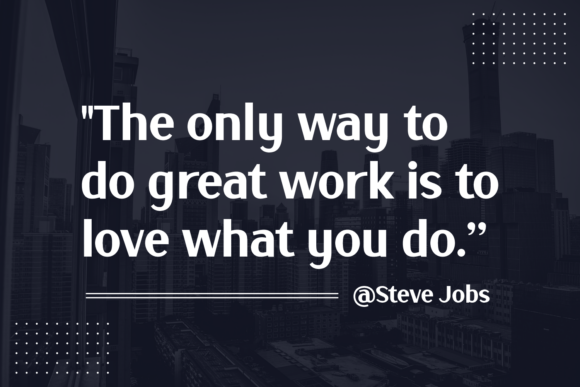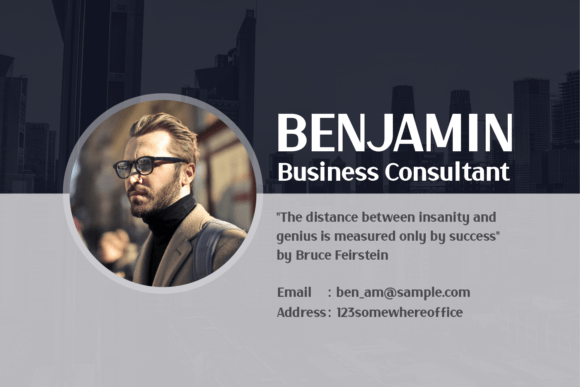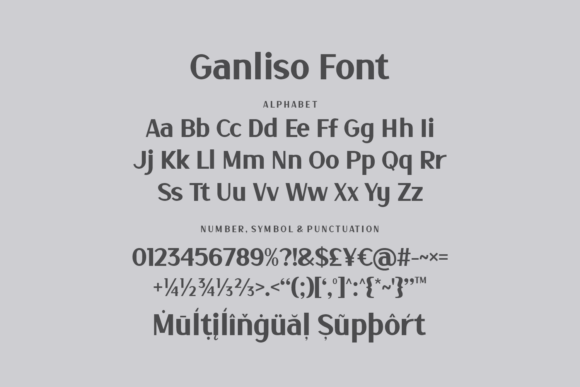
Introducing Ganliso Font: The Ultimate Modern Sans Serif for Branding and Digital Content
In the world of typography, fonts play a crucial role in shaping the visual identity of a brand. A well-designed font can elevate a brand’s image, convey its tone, and create a lasting impression on its audience. Ganliso, a bold and versatile modern sans serif font, is perfect for businesses, designers, and crafters looking to create a professional and approachable tone for their branding, digital content, and marketing materials.
Clean Lines, Rounded Terminals, and Geometric Balance
Ganliso’s design is characterized by clean lines, rounded terminals, and a geometric balance that gives it a unique and modern look. The font’s simplicity and legibility make it ideal for use in a variety of applications, from web interfaces and logos to presentations and editorial content. Its bold and confident appearance ensures that it stands out in any context, making it perfect for businesses that want to make a strong statement.
A Professional and Approachable Tone
One of the key benefits of Ganliso is its ability to convey a professional and approachable tone. The font’s clean lines and geometric balance give it a corporate feel, while its rounded terminals add a touch of warmth and friendliness. This makes Ganliso an excellent choice for businesses that want to project a modern and professional image without appearing too formal or distant.
Ideal for Various Industries and Applications
Ganliso’s versatility makes it suitable for use across various industries and applications. Whether you’re a startup, fintech company, agency, or editorial publication, this font can help you create a strong visual identity. Its simplicity and legibility ensure that it works well in a variety of contexts, from digital content and web interfaces to logos, presentations, and print materials.
A Smart Choice for Minimalist Projects
For designers and crafters working on minimalist projects, Ganliso is an excellent choice. The font’s clean lines and simple letterforms add a touch of modern professionalism to any design, making it perfect for projects that require a subtle yet effective typography solution. Ganliso’s bold and confident appearance ensures that it stands out in any context, making it an excellent addition to any minimalist design.
Humanist Touch and Corporate Vibe
Ganliso brings a subtle humanist touch to its design, making it an excellent choice for businesses that want to convey a sense of approachability and friendliness. At the same time, the font maintains a strong corporate vibe, making it perfect for businesses that want to project a professional image. This unique combination of humanist and corporate elements sets Ganliso apart from other modern sans serif fonts.
- Clean lines and geometric balance: Gives Ganliso a modern and professional look
- Rounded terminals: Adds a touch of warmth and friendliness to the font
- Simple and legible letterforms: Makes Ganliso ideal for use in a variety of applications
- Bold and confident appearance: Ensures that Ganliso stands out in any context
- Versatile and adaptable: Suitable for use across various industries and applications
In conclusion, Ganliso is an excellent choice for designers, crafters, and businesses looking for a modern sans serif font that conveys a professional and approachable tone. Its clean lines, rounded terminals, and geometric balance make it a versatile and adaptable font that works well across various industries and applications. With Ganliso, you can create a strong visual identity that elevates your brand and makes a lasting impression on your audience.
Whether you’re working on a branding project, digital content, or marketing materials, Ganliso is a smart choice. Its unique combination of humanist and corporate elements sets it apart from other modern sans serif fonts, making it an excellent addition to any design. So why not give Ganliso a try and experience the benefits of a well-designed font for yourself?